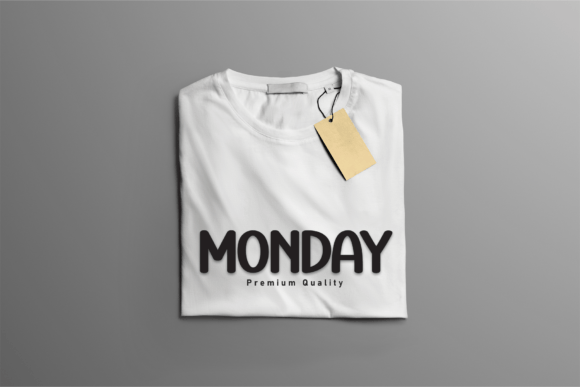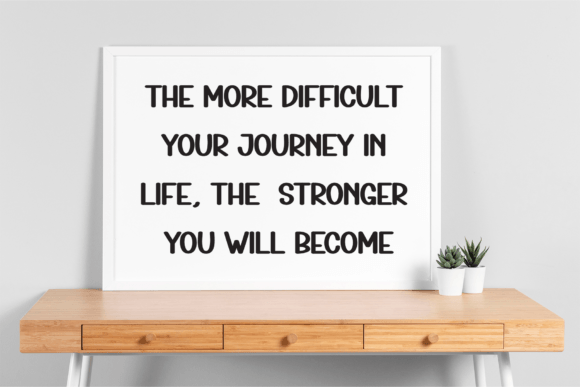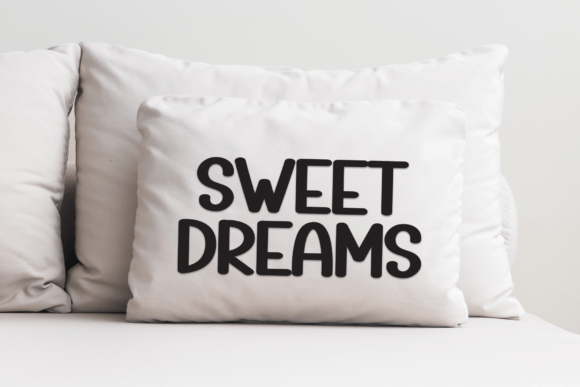
Introduction to Shina Baby Font
Shina Baby is a sweet and friednly handwritten font.
Key Features of Shina Baby Font
Why Choose Shina Baby Font?
Shina Baby Font offers exceptional quality and versatility, making it a valuable addition to your design toolkit. Whether you’re creating for personal projects or commercial use, Shina Baby Font delivers professional results.